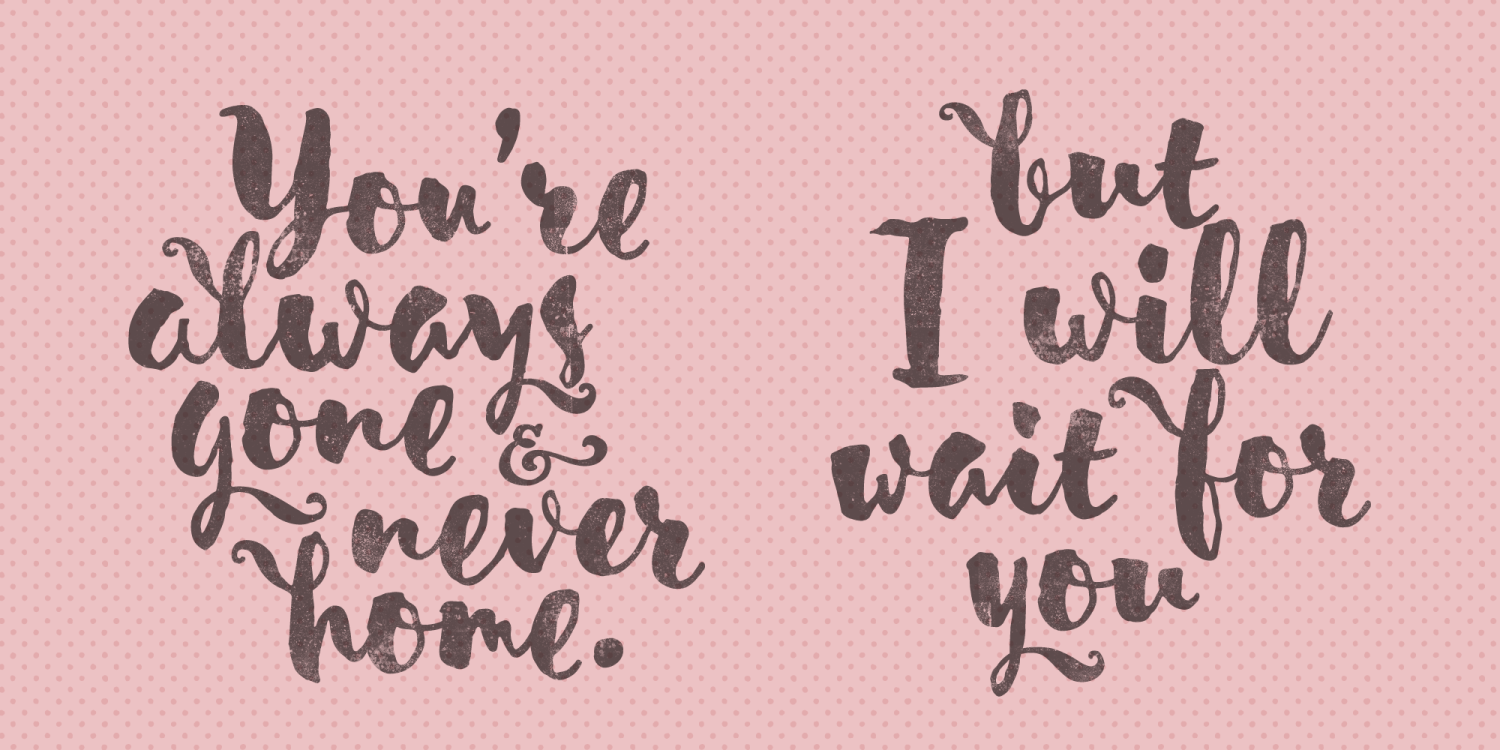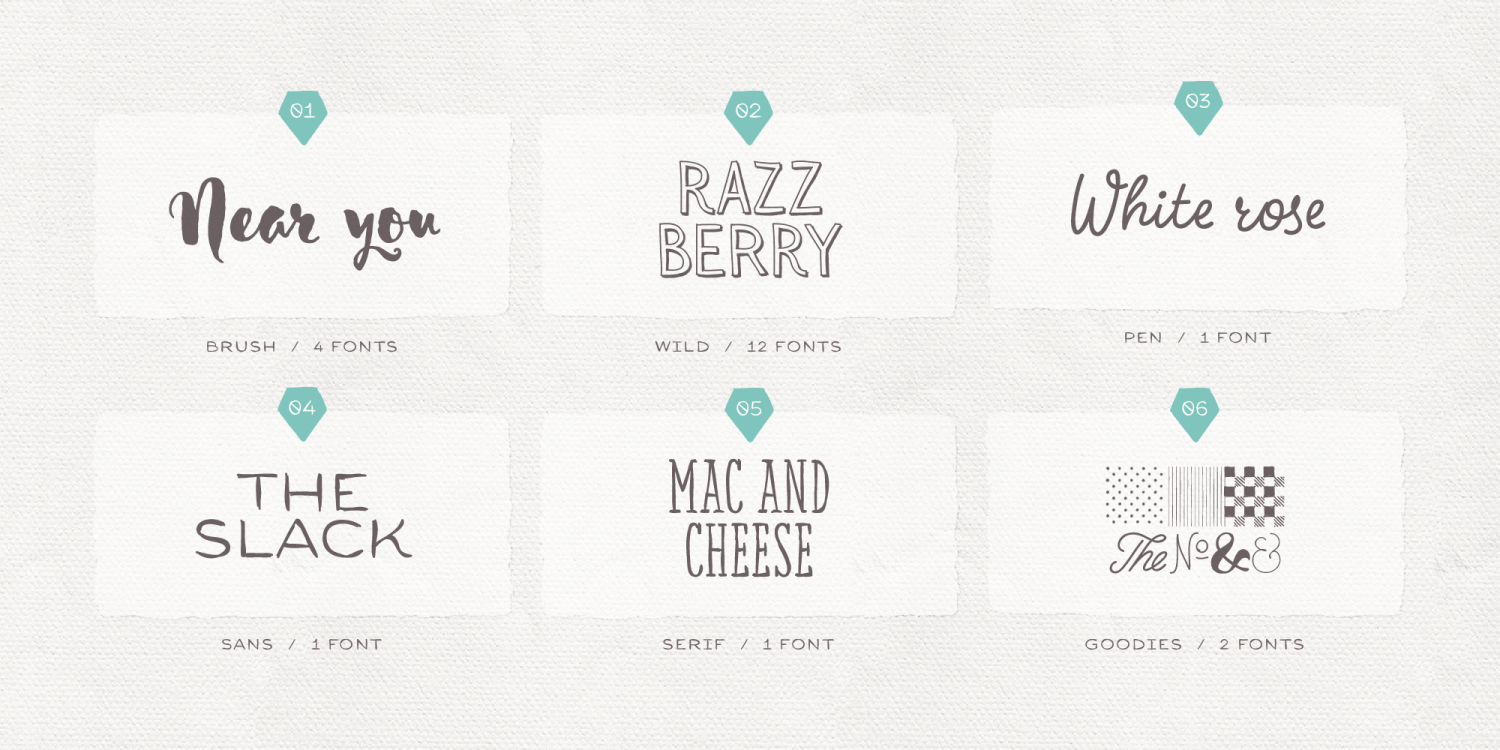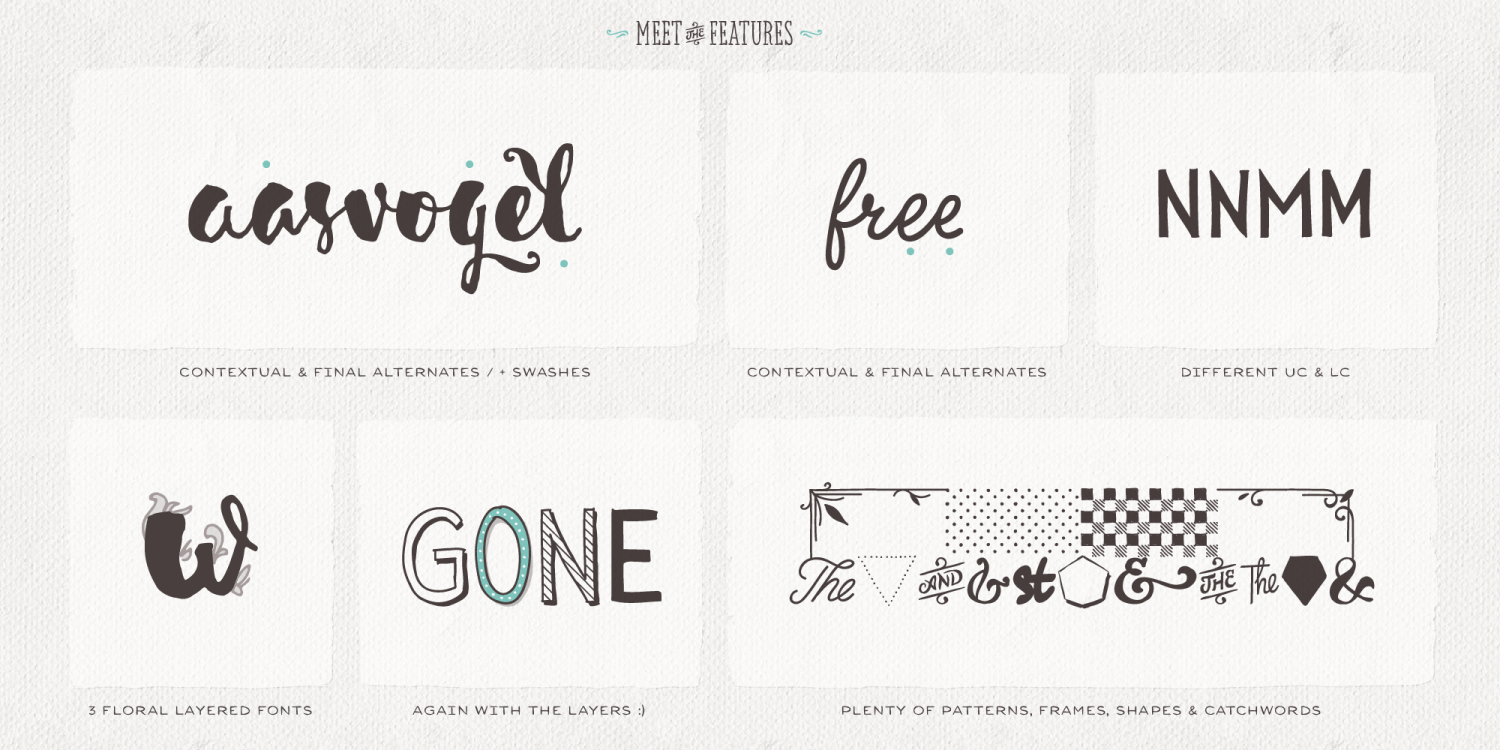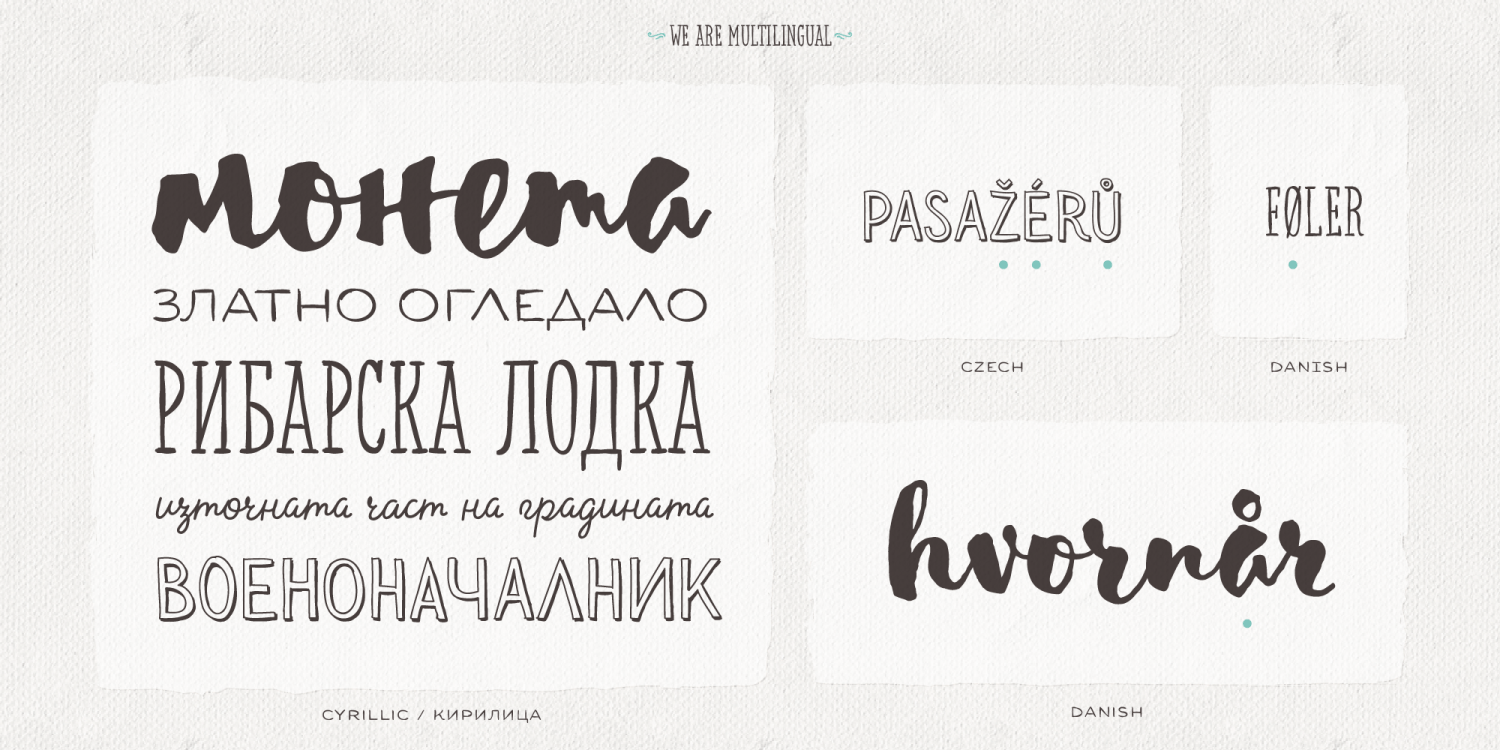
Sensa
Sensa is a handmade font family designed by Radomir Tinkov with Svetoslav Simov and published by Fontfabric. Conceived for extreme versatility, Sensa brings together 21 fonts thoughtfully divided into six distinct subfamilies—each with its own unique character, yet all engineered to work together harmoniously. This comprehensive collection was created for designers who crave expressive freedom and seamless stylistic variety in their work.
Why Choose Sensa?
Sensa is designed for virtually any creative project - from advertising to web, and screen graphics. Its standout feature is the strategic division into six subfamilies, making it an excellent choice for designers seeking a single, handmade family that can shift from beauty and tenderness to bold, strong communication.
With a total of 21 styles, advanced OpenType features, and robust multilingual support, Sensa ensures versatility and high-quality typography for every project. Download Sensa today!